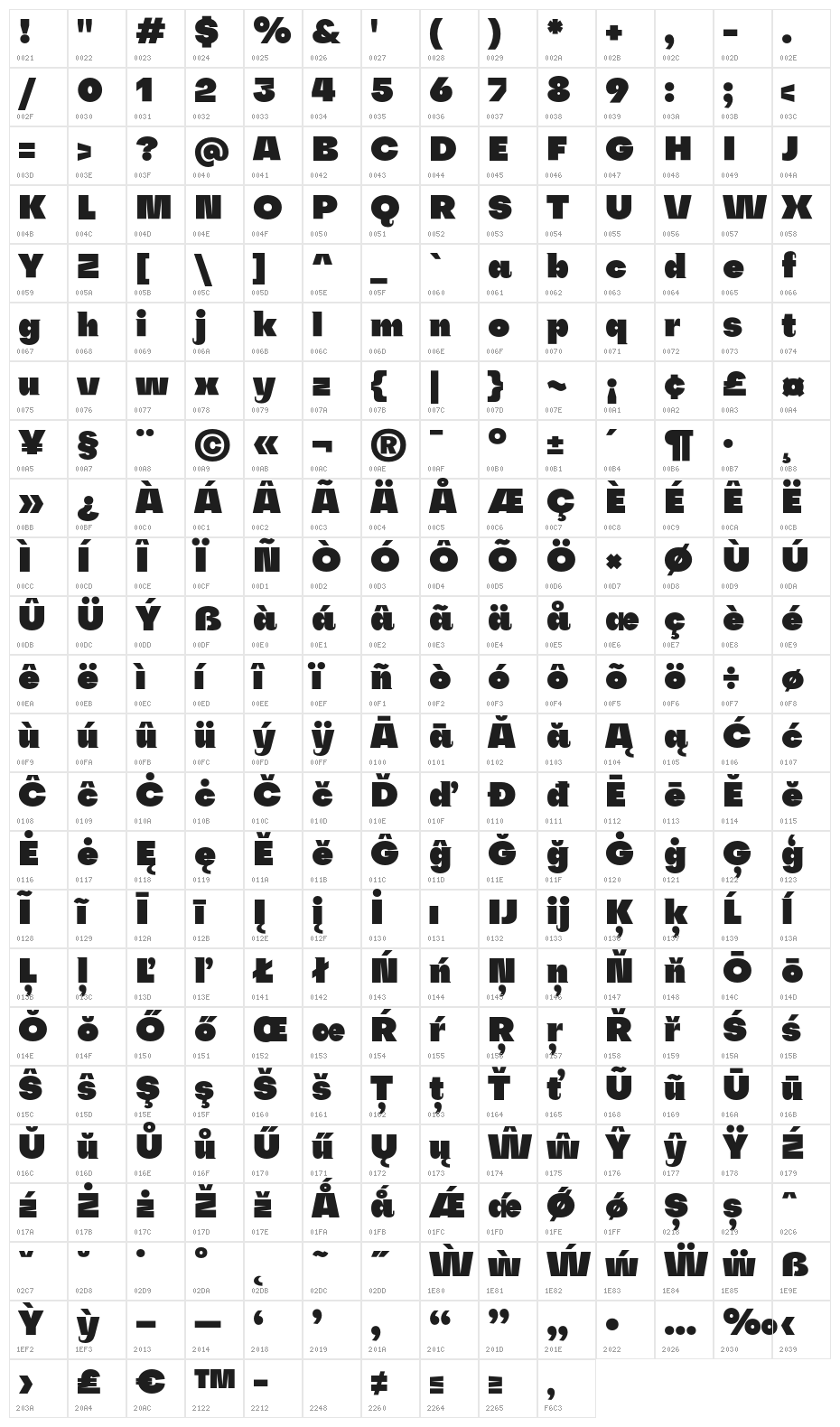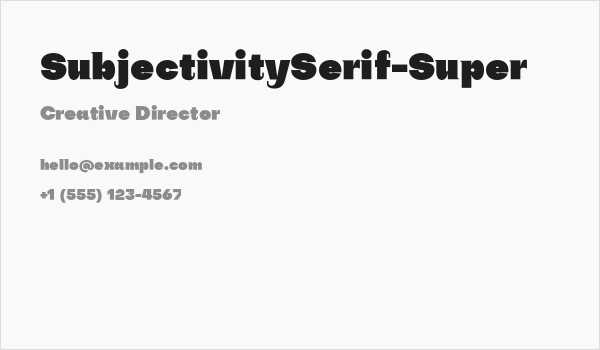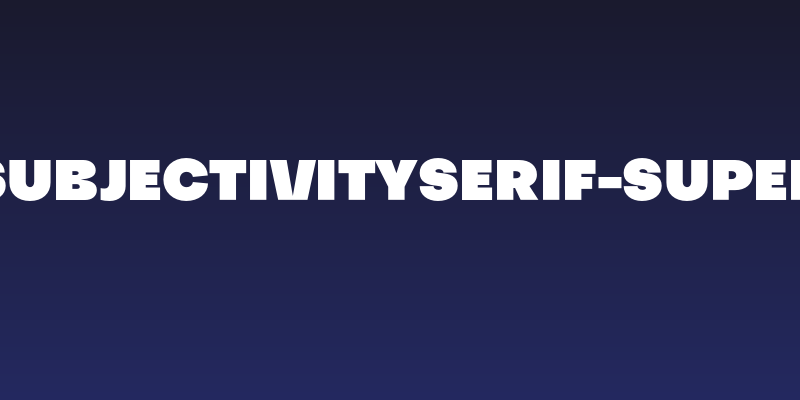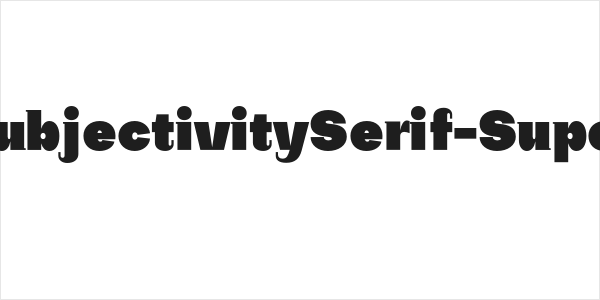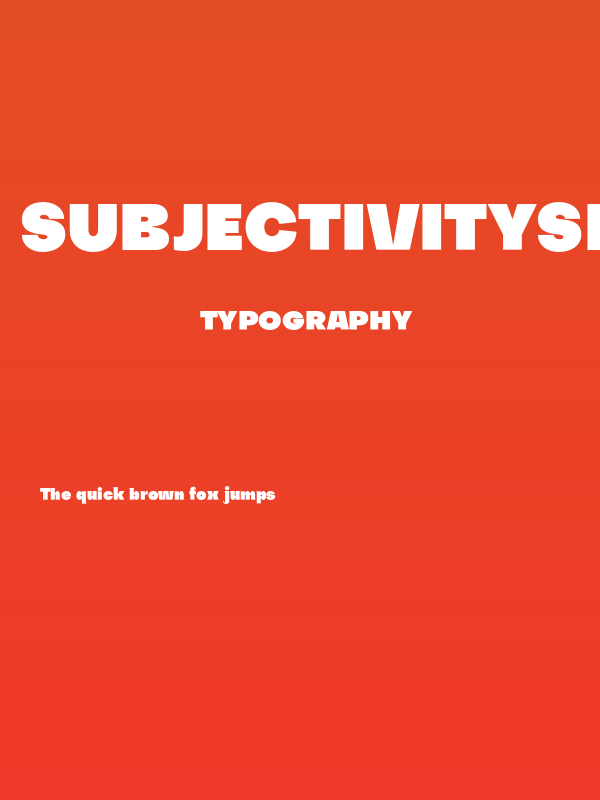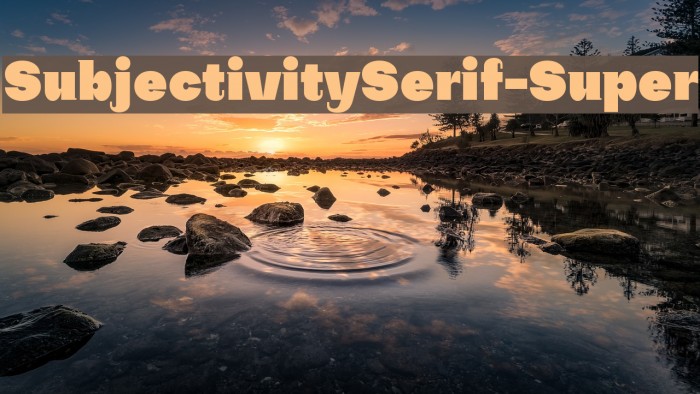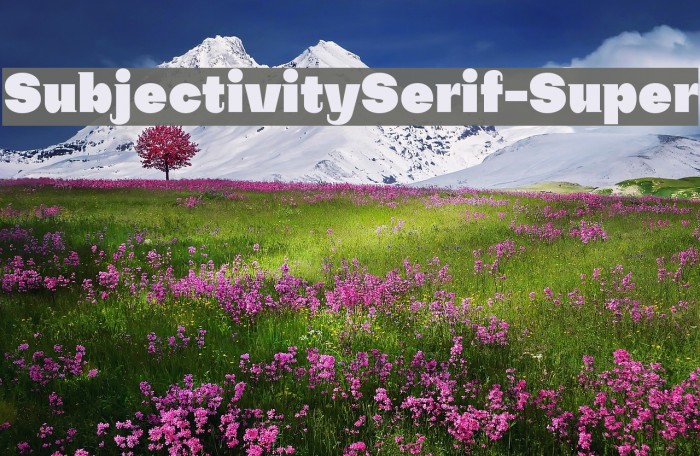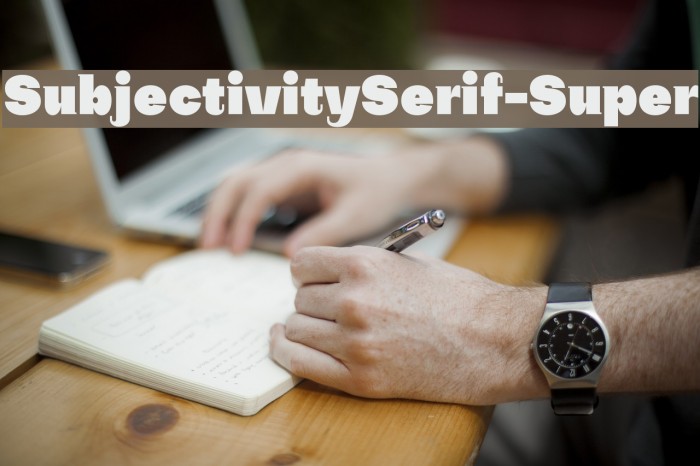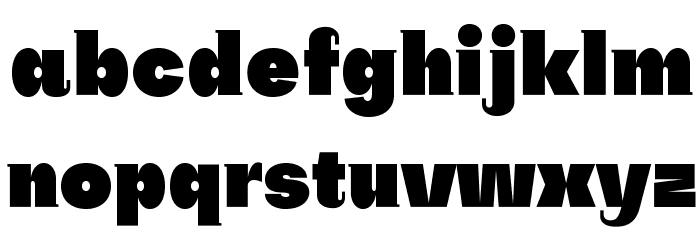
SubjectivitySerif-Super Font
SubjectivitySerif-Super Description
This font exhibits a bold and commanding presence with its thick, heavy strokes and strong geometric shapes. The uppercase letters are particularly striking, with a uniform height and width that convey a sense of stability and strength. The lowercase letters maintain the same boldness, ensuring consistency across different text cases. The numerals are equally robust, making them stand out prominently. Special characters are designed with the same weight and style, providing a cohesive look throughout. This font is ideal for making a strong visual impact, whether in print or digital media.
| Proposed Projects | Ideal for branding, headlines, posters, and any project requiring a strong visual impact. |